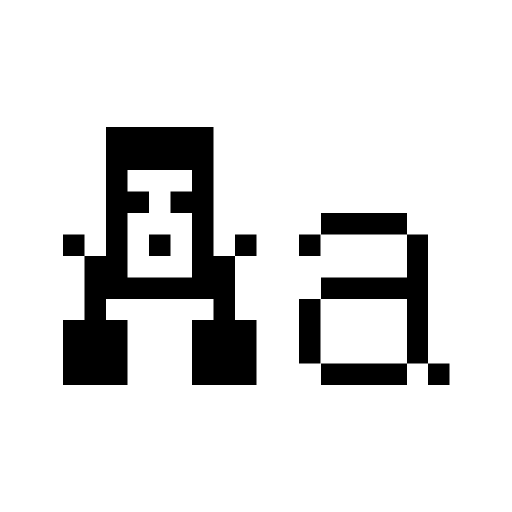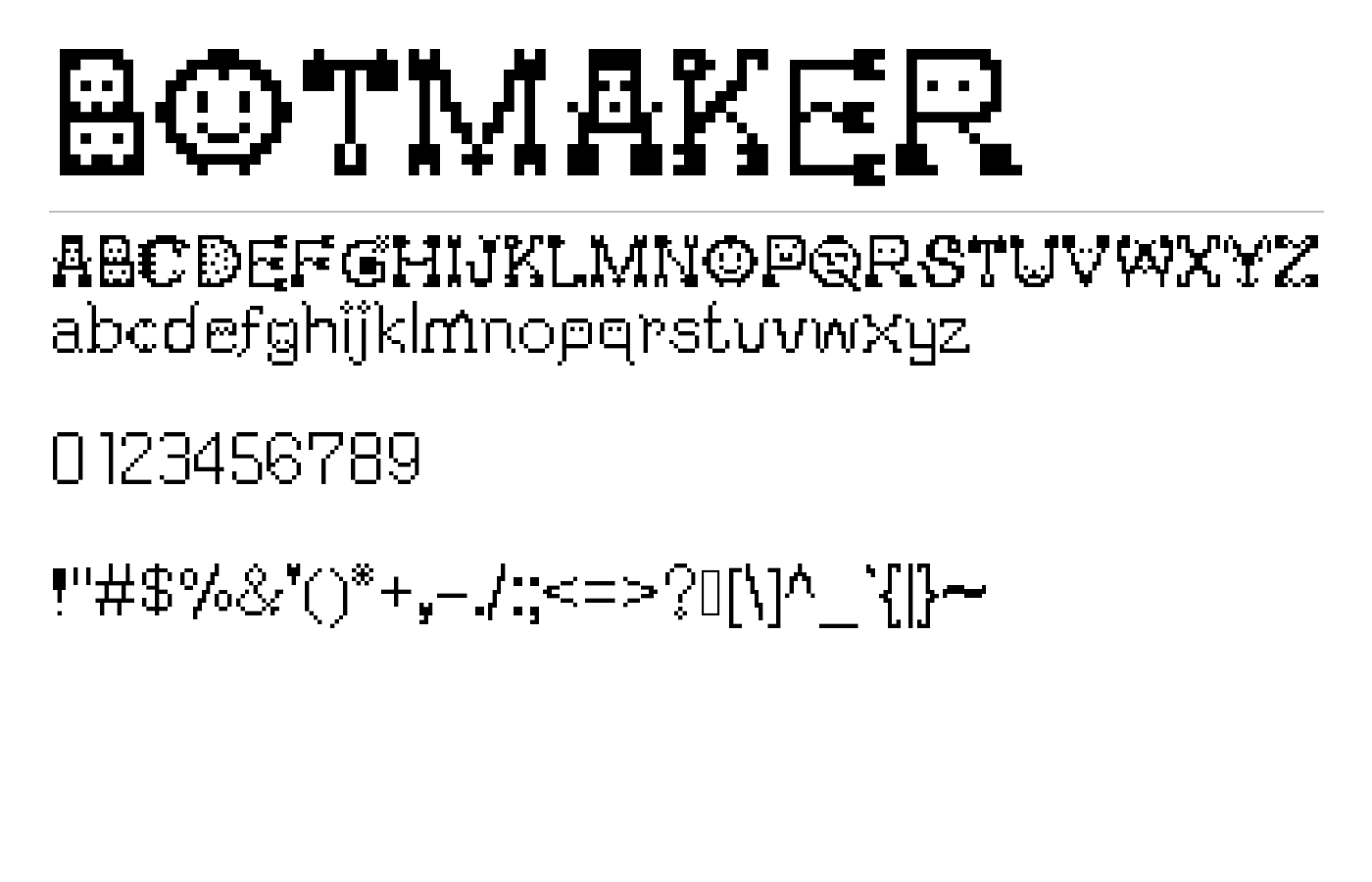
BOTMAKER is a playful pixel-style font that evokes a retro, digital vibe with its blocky, sharp-edged characters and distinctive pixelated design. It combines a bold, eye-catching uppercase with a lighter lowercase, making it ideal for video game, tech, or nostalgic digital-themed projects. This font works best in headlines, logos, or creative displays where a fun and vintage computer feel is desired.
BOTMAKER Font
About BOTMAKER Font